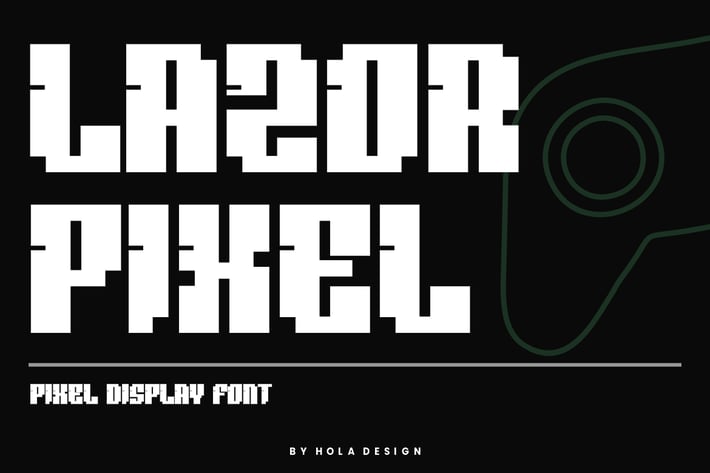
Lazor Pixel - Game Display Font
Lazor Pixel - Game Display Font is unique . Ready to use for your design like labeling, movie sceen, poster, movie title, gigs, album covers, logos, and much more.